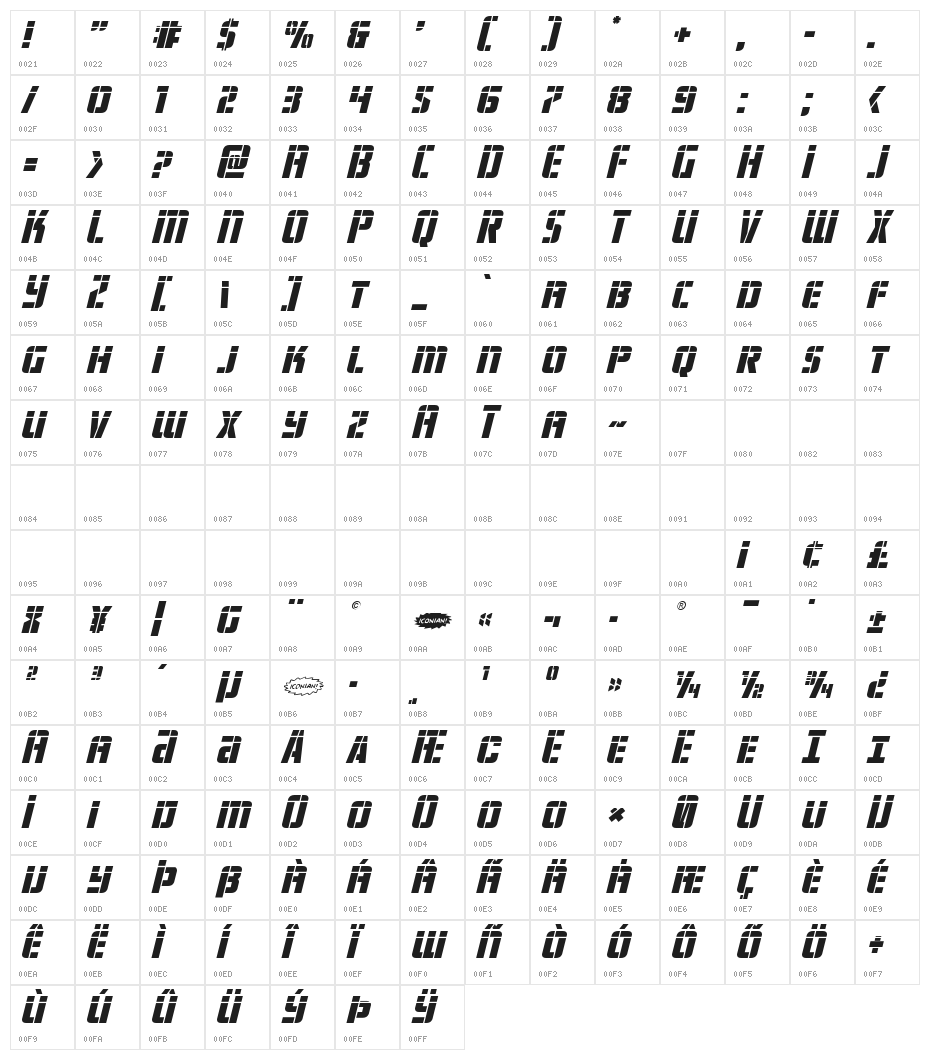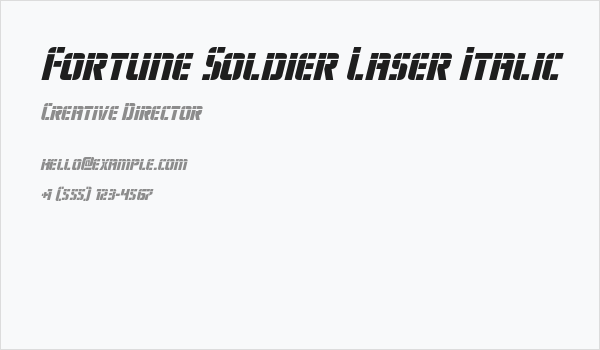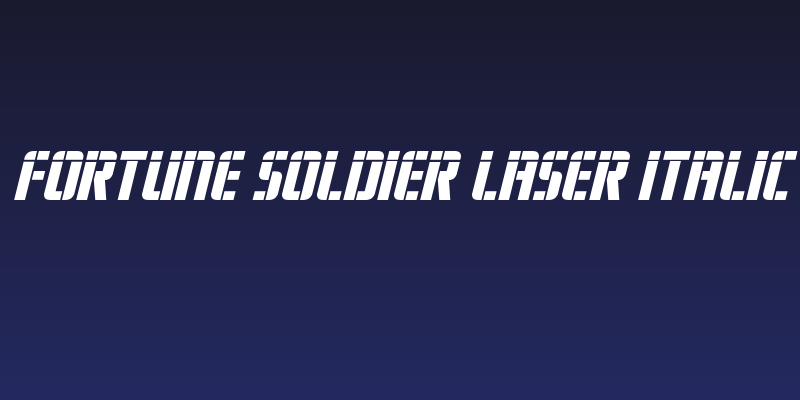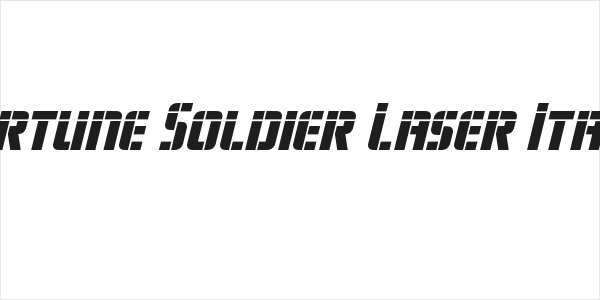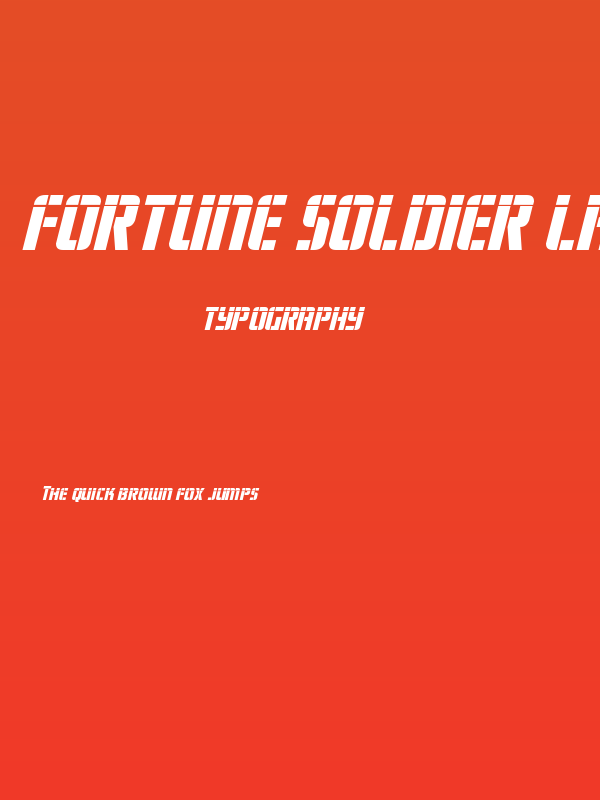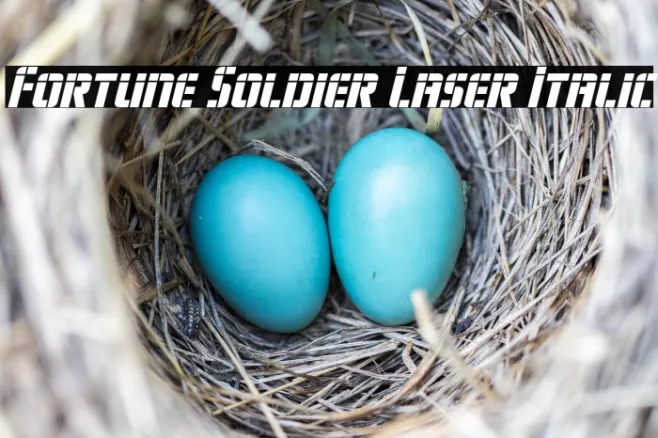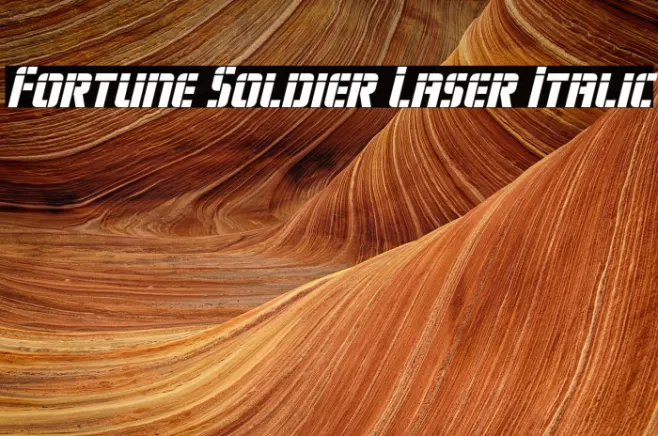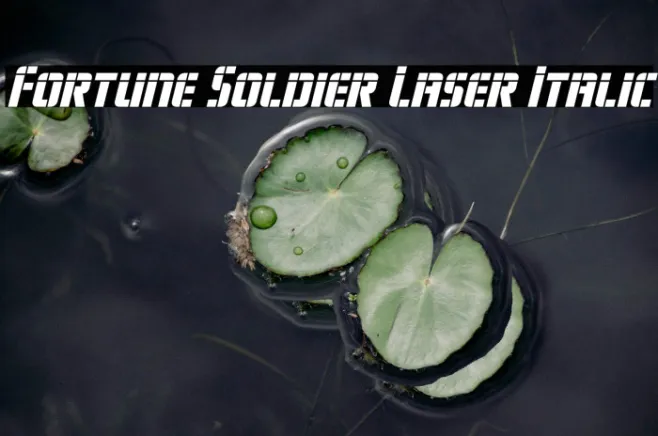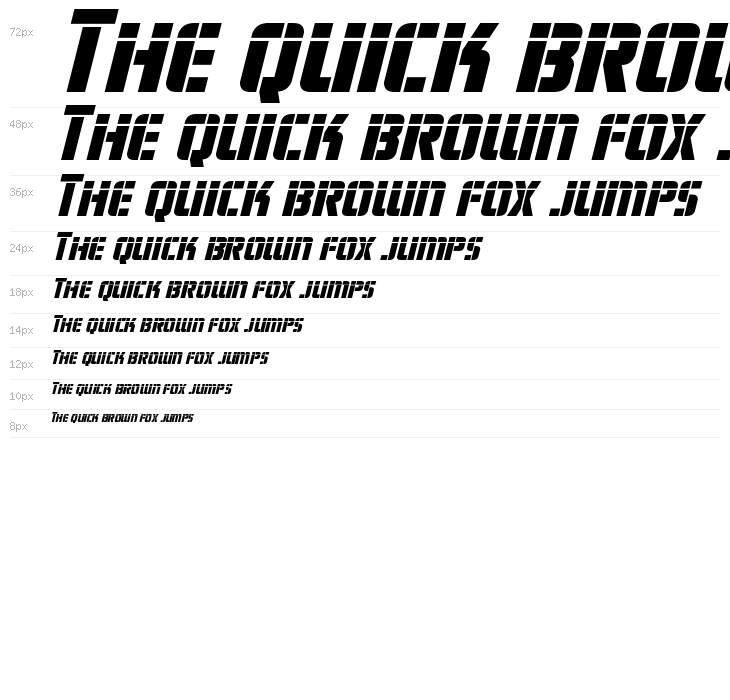
Fortune Soldier Laser Italic Font
Fortune Soldier Laser Italic Description
This font features a bold, italicized style with a futuristic and dynamic appearance. The letters are sharply angled, giving a sense of movement and speed. The strokes are thick and consistent, creating a strong visual impact. The characters are slightly condensed, enhancing the compact and powerful look. This style is ideal for projects that require a modern and assertive typeface, such as technology branding, sports team logos, or action-themed posters. The font's unique design elements make it stand out, ensuring that any text set in this typeface will capture attention.
| Use Case | Logos, Headlines |
| Proposed Projects | Ideal for technology branding, sports logos, and action-themed posters. |